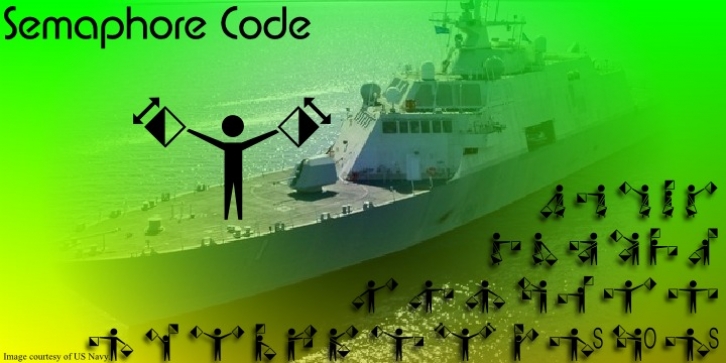
Semaphore was designed by Denise Koehler and published by Deniart Systems. Semaphore contains 1 style.
This font can be used as a play'n learn tool to teach the meaning of these modern day communication symbols. Each alphabetical character can be printed with or without the corresponding roman symbols.